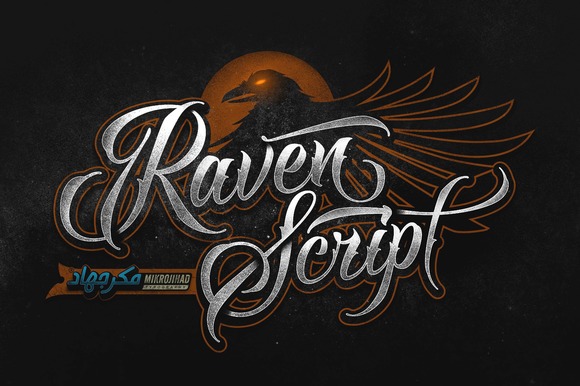
Step into a world of dark elegance and timeless beauty with Raven Script Font, a mesmerizing display font inspired by the mysterious allure of a raven's wings. Crafted with meticulous care by Mikrojihad Typefounder, this captivating font family will enchant you with its graceful strokes and sweeping curves.
Immerse yourself in the world of Raven Script Font, where letters dance with a lyrical grace, intertwining like whispering secrets. Designed with an array of stylistic variations, contextual alternates, and swashes, this font is a versatile masterpiece that adapts seamlessly to your creative vision.
Unleash your inner artist and explore the endless possibilities of Raven Script Font. Whether you're crafting logos that exude an air of sophistication, designing wedding invitations that radiate romance, or creating social media graphics that demand attention, this font will elevate your designs to new heights.
With its rich history and captivating aesthetic, Raven Script Font is more than just a font; it's an embodiment of elegance, mystery, and timeless charm. Let your imagination soar as you weave words into works of art, leaving a lasting impression on your audience.
Dive into the allure of Raven Script Font today and discover a world of creativity that knows no bounds. Let your designs take flight with the beauty and grace of a raven's wings.